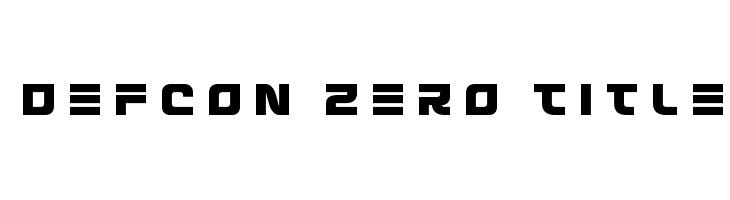
A bold, rounded, and italicized font with a playful and modern style.
A bold, rounded sans-serif font with a playful and modern aesthetic.
A bold, rounded sans-serif font with a playful and approachable style.
A bold, italicized font with rounded edges and a playful, modern style.
A playful, bold, and rounded italic font with a dynamic and energetic style.
A bold, playful script font with rounded edges and smooth character flow.
A bold, rounded font with a playful and modern aesthetic.
A bold, gothic-inspired font with sharp, angular edges and a modern twist.
A playful, hand-drawn font with a whimsical and artistic style.
A dynamic, expressive handwritten font with fluid strokes and bold characters.
A bold, high-contrast decorative font with unique curves and angles.
A bold, decorative font with sharp angles and smooth curves, ideal for striking designs.
A bold, playful font with rounded strokes and a modern, dynamic style.
A bold, rounded font with playful circular elements and a modern aesthetic.
A bold, 3D-effect font with thick, blocky letters and a strong visual presence.
A bold, three-dimensional font with a vintage shadow effect.
Decorative numerals inside icosahedron shapes, mimicking dice.
A bold, decorative stencil-style font with enclosed characters.
A bold, blocky font with a pixelated, digital aesthetic.
A modern, geometric font with a double-line structure for a futuristic look.
A modern, geometric font with parallel lines creating depth and sophistication.
A bold, angular font with a futuristic and geometric design.
A bold, geometric font with a futuristic, angular design.
A bold, geometric font with a three-dimensional, futuristic design.
A playful, handwritten font with smooth, rounded edges and a casual style.
A playful, casual handwritten font with smooth, flowing lines.
A playful, handwritten font with rounded, bold letterforms.
A playful, handwritten font with bold, irregular strokes and a casual style.
A playful handwritten font with smooth curves and a casual style.